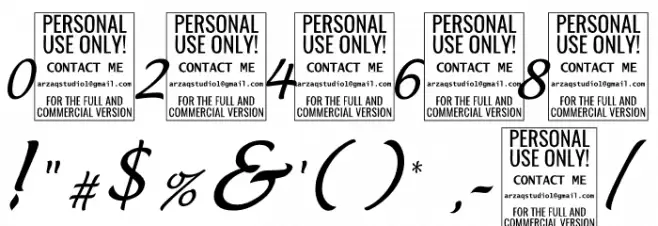
Halloween Witches Script Font
Halloween Witches Script Description
This font features an elegant and whimsical script style, characterized by its ornate and flowing letterforms. The uppercase letters are particularly decorative, with intricate swirls and loops that give a sense of movement and flair. The lowercase letters maintain a cohesive style, offering a more subdued but still stylish appearance. The font includes a variety of special characters, enhancing its versatility for creative projects. Its overall design is reminiscent of classic calligraphy with a modern twist, making it suitable for a variety of applications where a touch of elegance is desired.
An elegant and whimsical script font with ornate, flowing letterforms from Script fonts.
- Font: Halloween Witches Script
- Proposed Projects: Ideal for invitations, greeting cards, branding, and decorative projects.
- Use Case: Logos, Invitations, Decorative text